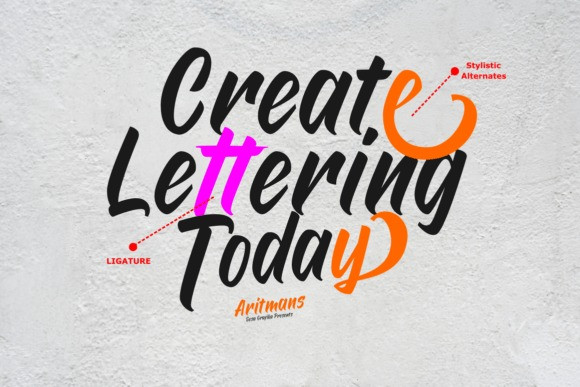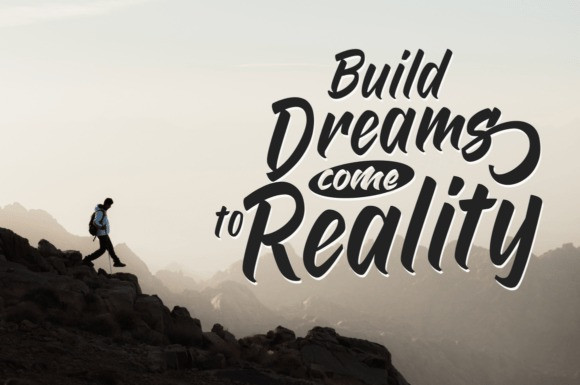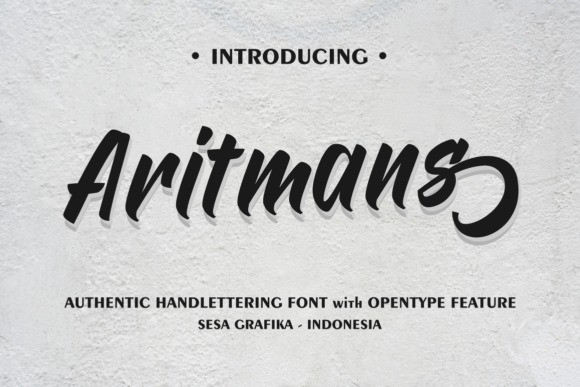
Aritmans Script Font
Aritmans Script Font is a bold script font, perfect for wall displays, wedding invitations, social media post logos, advertisements, product packaging, product designs, labels, photography, watermarks, invitations, stationery, and any project that requires handwritten taste.